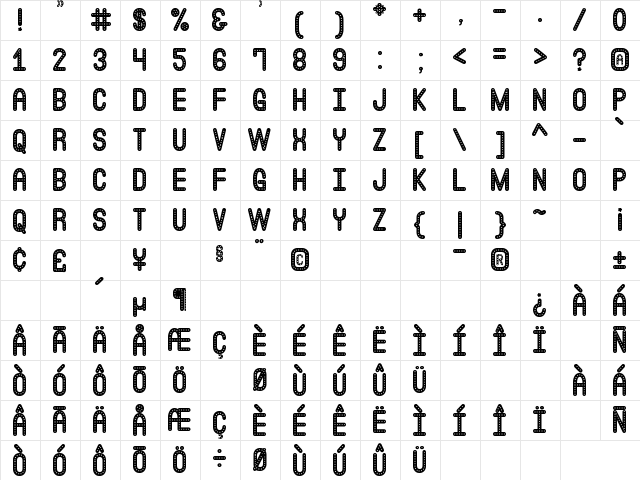
Eat at Joe's St Regular
Design Context for Eat at Joe's St Typeface
Eat at Joe's St is a composed and adaptable typeface that performs quietly and consistently across a wide range of design contexts.